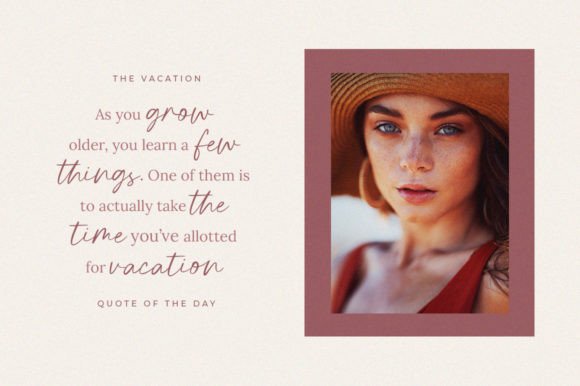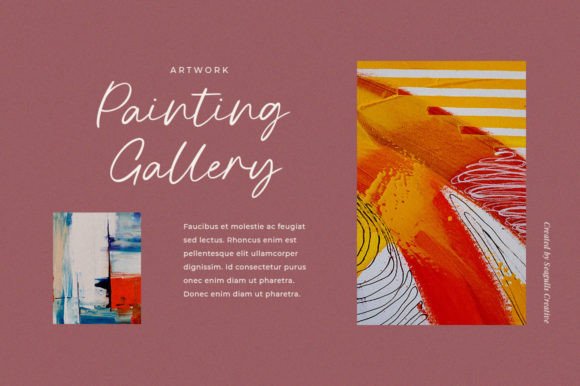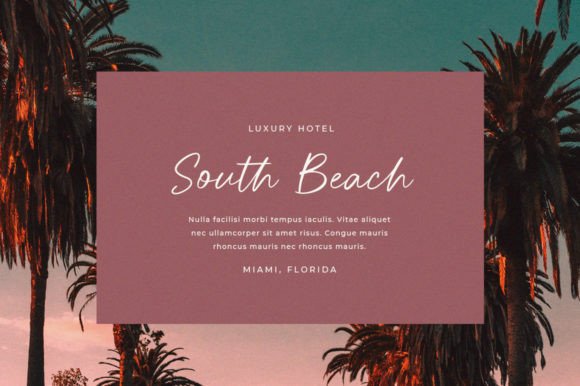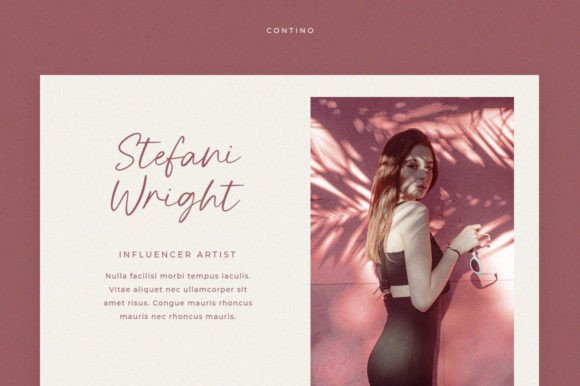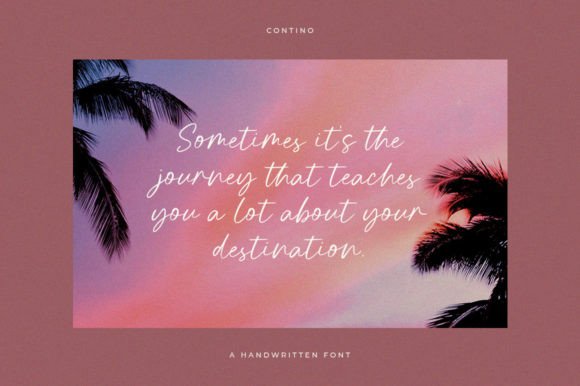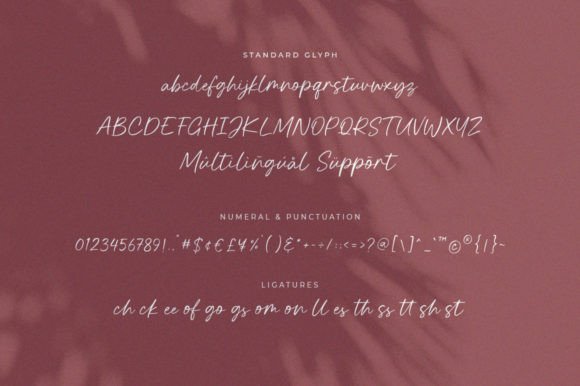
Contino Font
**Contino** is a modern and fun handwritten font, meticulously crafted to bring a fresh and contemporary vibe to your design projects. With its attention to detail and unique character, this font is suitable for a wide range of creative endeavors, making it a versatile addition to your font collection.
The font’s modern handwritten style sets it apart with its playful and energetic appearance. It adds a touch of vibrancy and creativity to your designs, making them stand out. Whether you’re working on branding, invitations, book covers, greeting cards, blogs, printed quotes, album covers, posters, or any other design project, **Contino** effortlessly adapts to various contexts.
**Contino** is well-suited for both digital and print applications, maintaining its modern and fun character regardless of the medium. Its readability ensures that your message is conveyed with clarity, while its handwritten style infuses a sense of personality and uniqueness into your projects.
What makes **Contino** special is its ability to bring a sense of playfulness and modernity to your designs. It encourages your audience to engage with your content in a lively and creative manner, creating a memorable and energetic experience. With **Contino** as part of your creative toolkit, you have the means to craft designs that captivate and inspire.
**Contino** offers a range of customization options, allowing you to fine-tune your text to match your creative vision precisely. This flexibility empowers you to create designs that align perfectly with your artistic preferences.
In conclusion, **Contino** is a font that brings a modern and fun twist to your creative projects, infusing them with vitality and uniqueness. Embrace its handwritten style, and let it inspire you to create designs that spark joy and enthusiasm. With **Contino** at your disposal, your creative possibilities are expansive, enabling you to craft engaging and memorable works of art through its modern and playful typography.